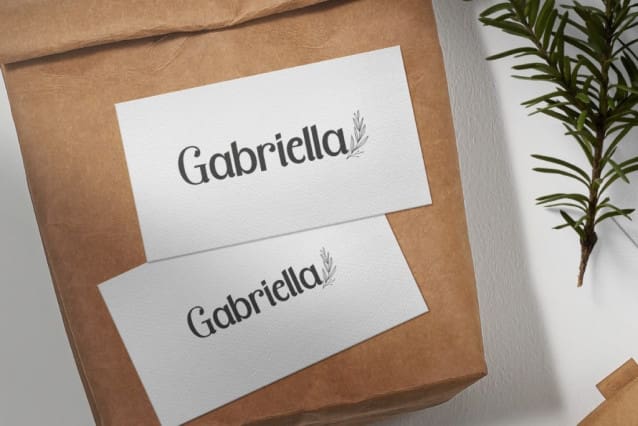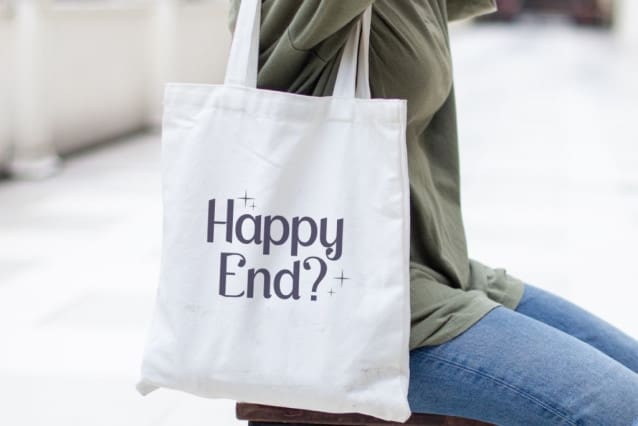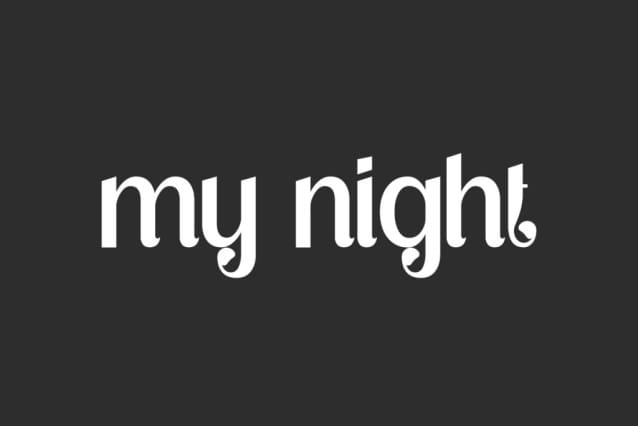
My Night Font
My Night Font is a beautiful, girly and classic sans serif display font inspired by some flowers branches. This font has a timeless shape and style, and can also be paired with other types of fonts. It will suits many designs, such as brochure, custom design, gift box, invitation, label, poster, product packaging, quote, screen printing, signage, stationery, website, and more!
My Night Font includes full set of Uppercase and Lowercase Basic Characters, Numerals, and Punctuation. This font inspired by the beauty of the night sky is suitable for many industries, such as accessories, advertising, beauty product, event or wedding organizer, fashion, florist, furniture, handicraft, resort, restaurant, etc.